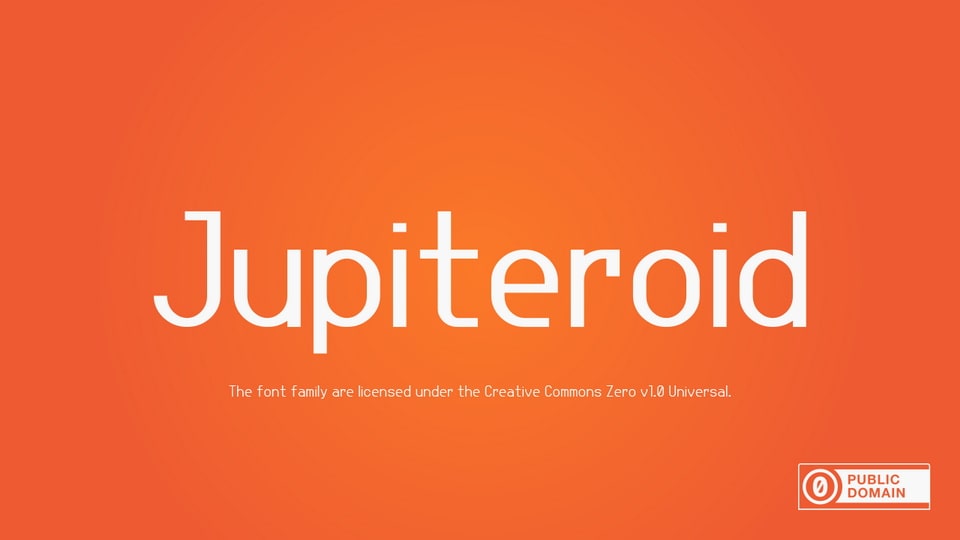
Download Jupiteroid font, a modern sans serif typeface with geometric structure and technical appearance. Jupiteroid font works best for display use but is also suitable for text blocks and web.